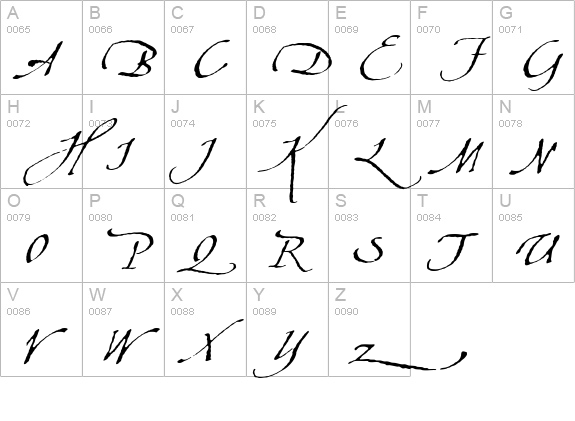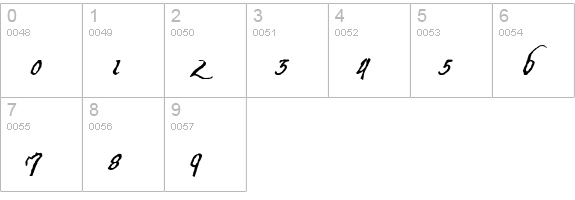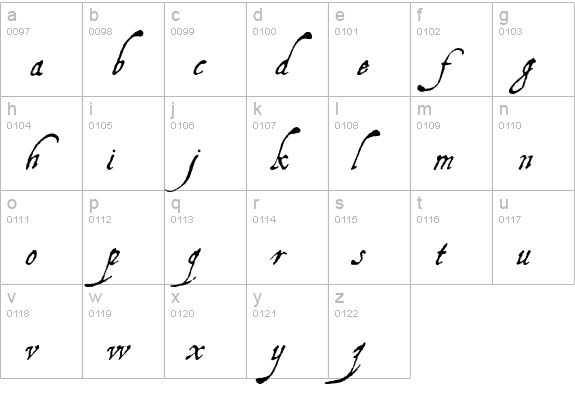
AquilineTwo Font Details
AquilineTwo font is a stunning and elegant typeface that exudes a sense of sophistication and charm. With its graceful curves and delicate lines, this font is perfect for adding a touch of class to any design project. Its timeless appeal makes it ideal for a wide range of applications, from wedding invitations to branding materials. What sets AquilineTwo font apart is its versatility - it can be used for both formal and informal designs, making it a truly versatile choice for any creative project. Whether you're designing a logo, creating a poster, or crafting a greeting card, AquilineTwo font is sure to make a lasting impression. The best part? AquilineTwo font is available for free download at FontsMarket.com, allowing you to access this beautiful typeface without any cost. Don't miss out on the opportunity to enhance your designs with the elegance of AquilineTwo font - download it today and elevate your projects to the next level.